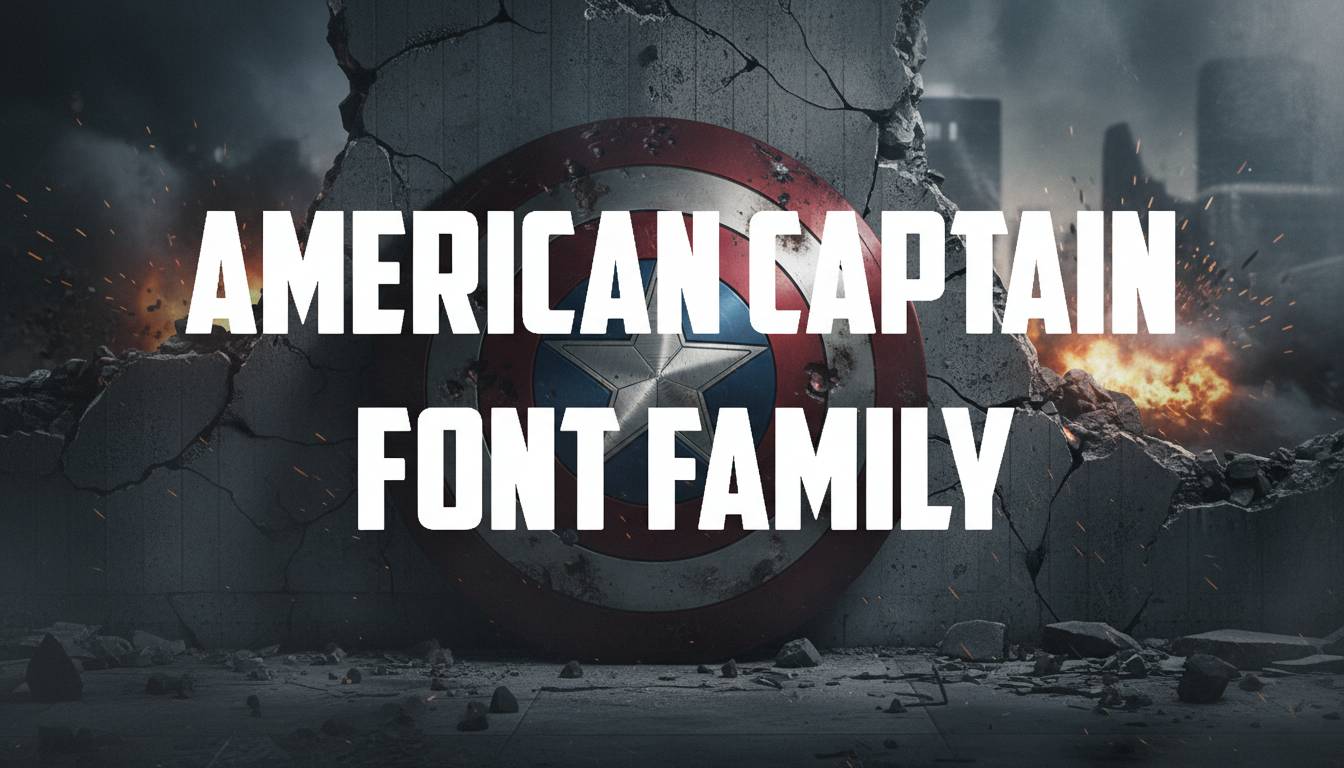
American Captain is a bold, high-impact display sans-serif typeface designed by Michael Gene Adkins and published by The Fontry. Best known as the definitive font mimicking the branding and titles of Marvel’s Captain America and The Avengers cinematic universe, it features structural roots that trace back to mid-20th-century sign painting and hand-lettering.
American Captain
American Captain is a fancy font made by The Fontry (2010).
- Designer: The Fontry
- Year: 2010 (from the copyright line in the font)